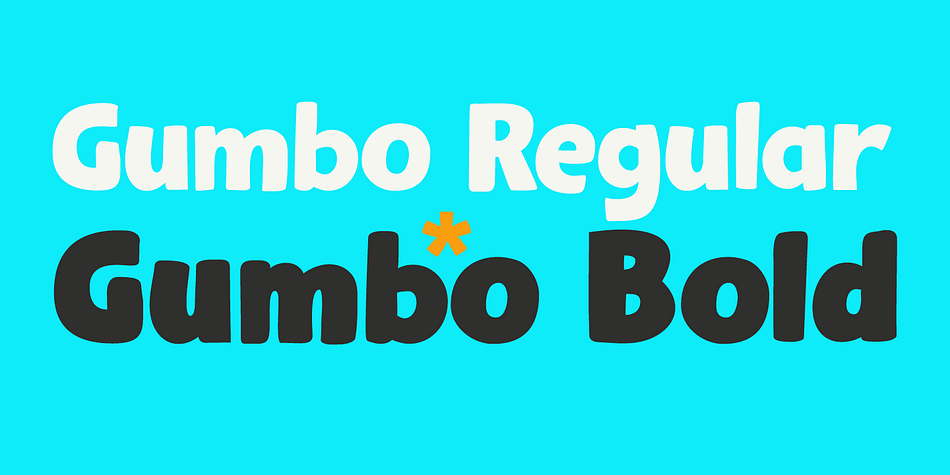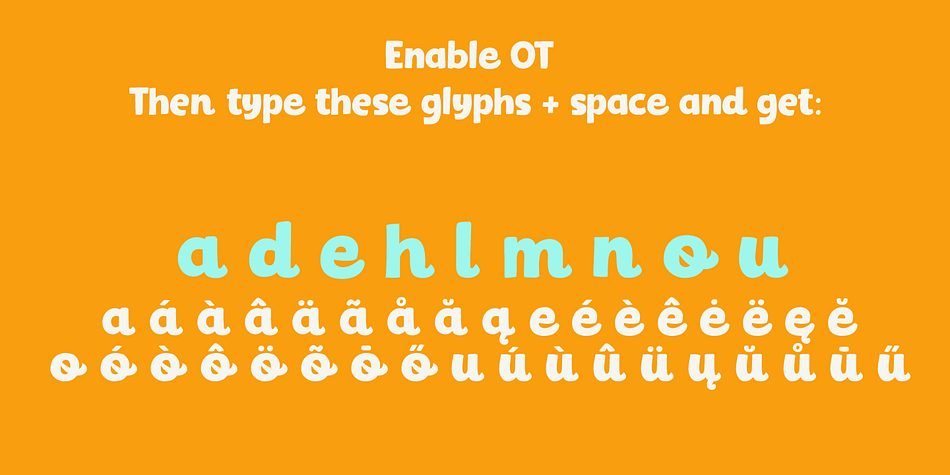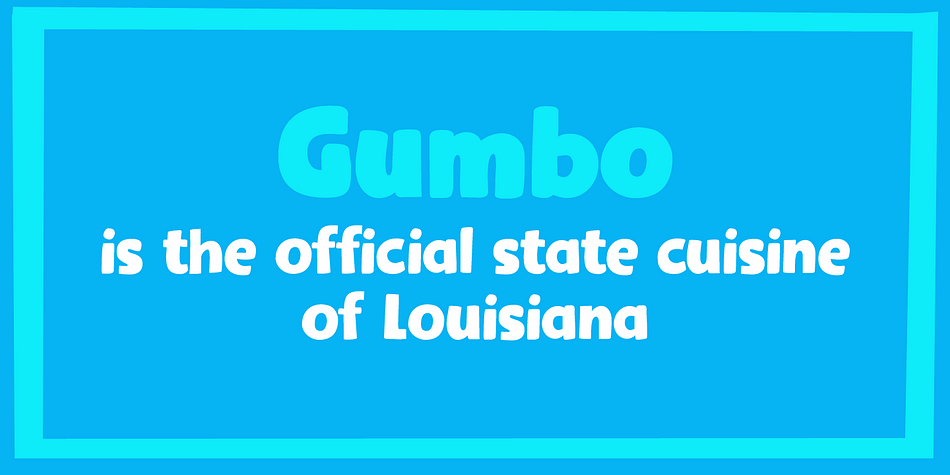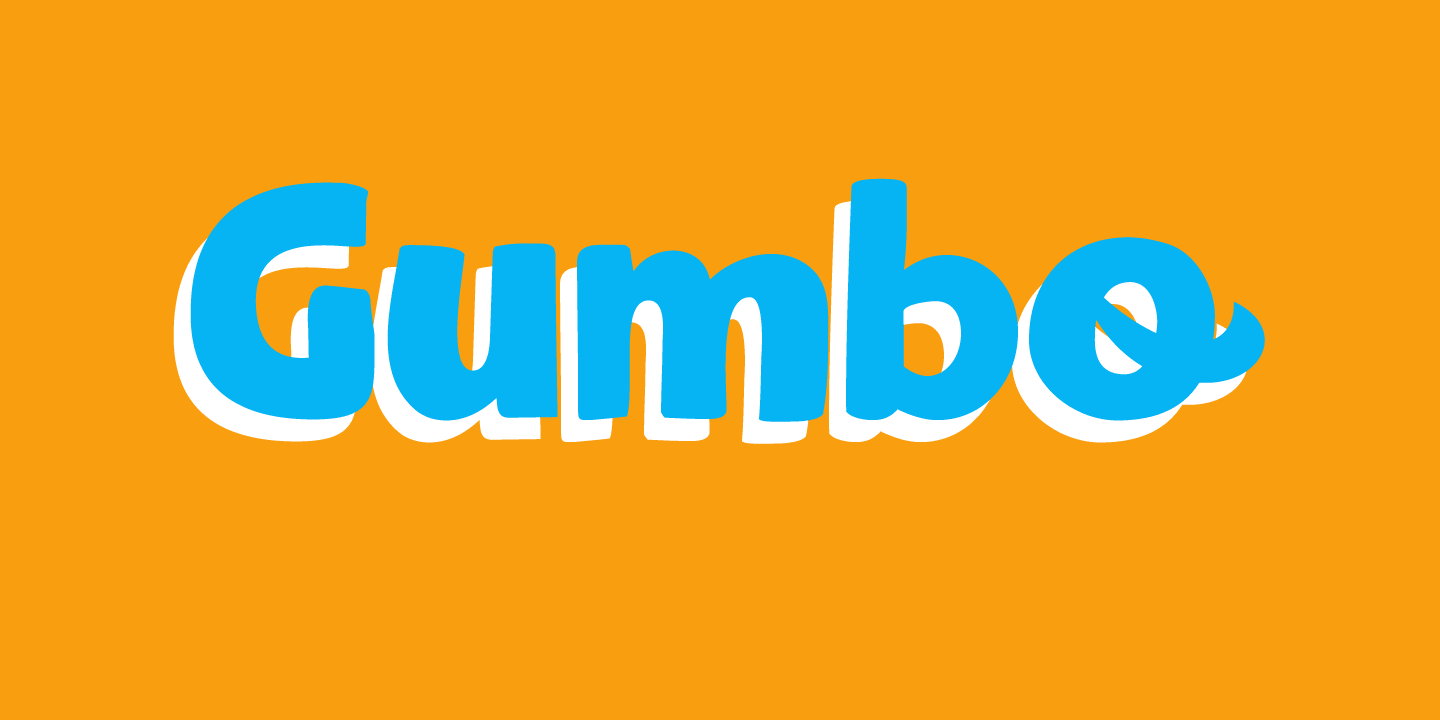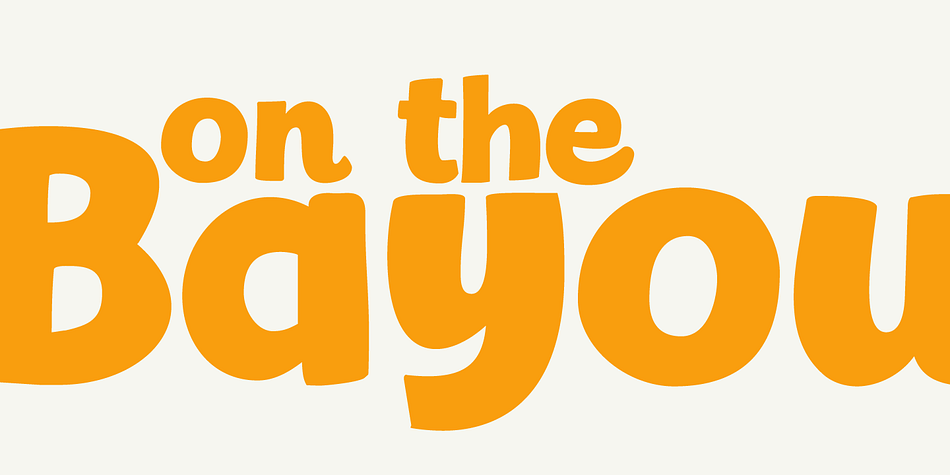
Designed by David Kerkhoff, Gumbo is a hand display and kids font family. This typeface has four styles and was published by Hanoded.
Lately I have been experimenting with different foods. At home, we eat a lot of Asian food, but I thought it would be nice to broaden my culinary horizon a bit. So far I have (successfully) added Georgian beef and walnut soup, Tacos (after a suggestion by my friend Stuart), Surinam Roti and various vegetarian dishes to our menu.
When I created this font, I had to think of Gumbo - a dish I have never made.
Gumbo is a handmade display font that comes in a rotund regular and an obese bold (with Italics). Use it for your book covers, product packaging and sticky notes.
Gumbo comes with cute ‘end of word’ ligatures - just type the glyph + space and presto: you have a little swash.
As for the dish Gumbo, well, I will make that this weekend!